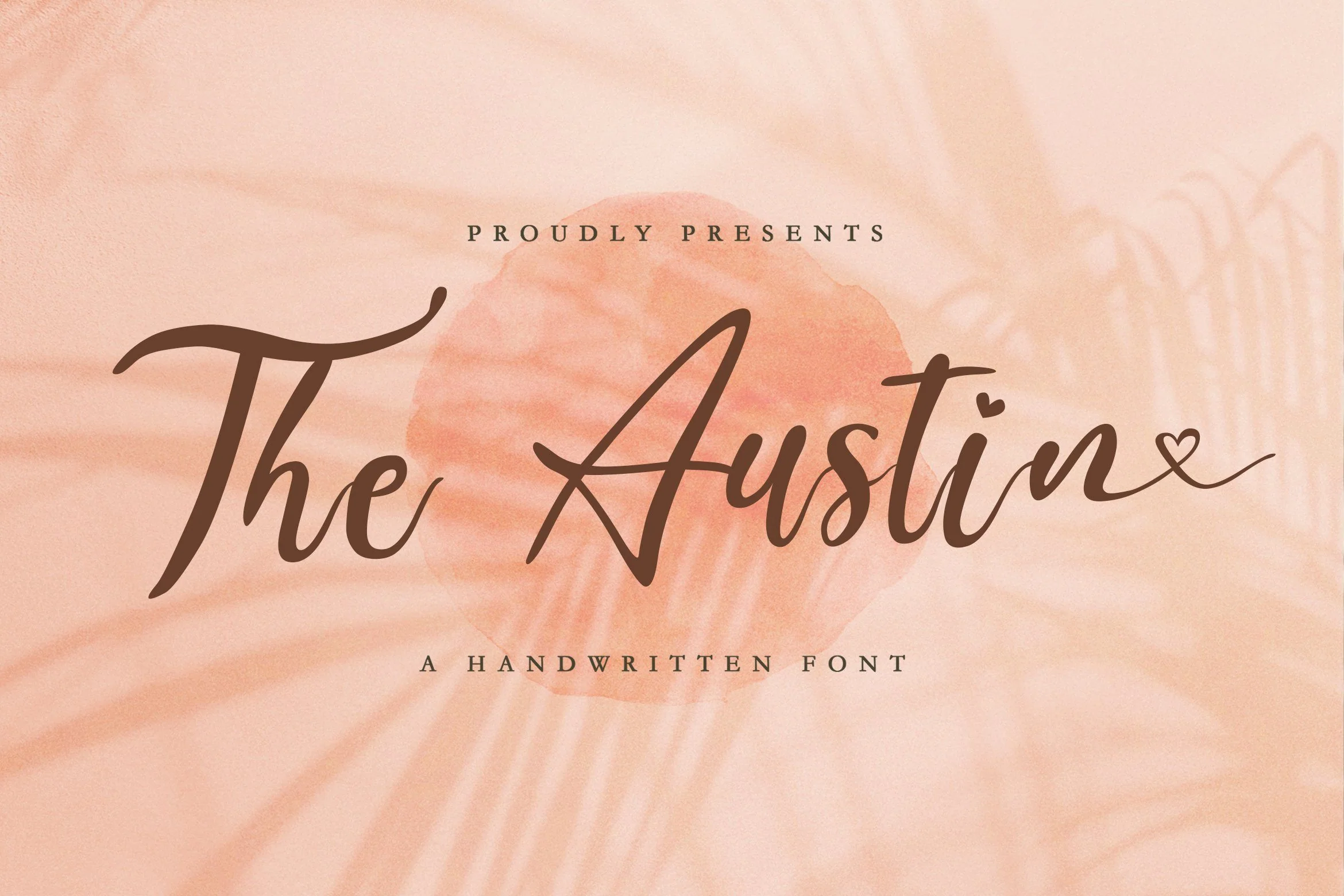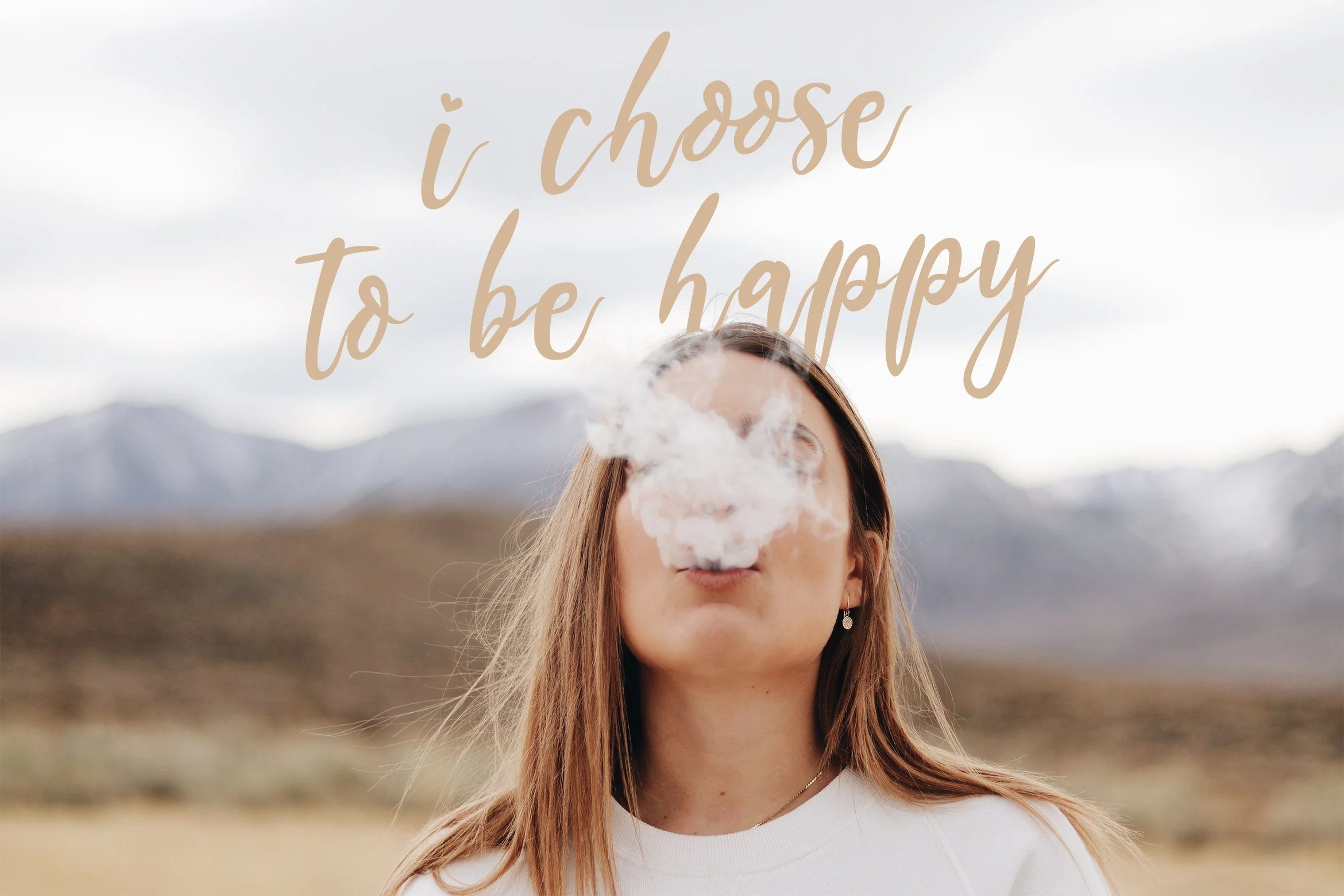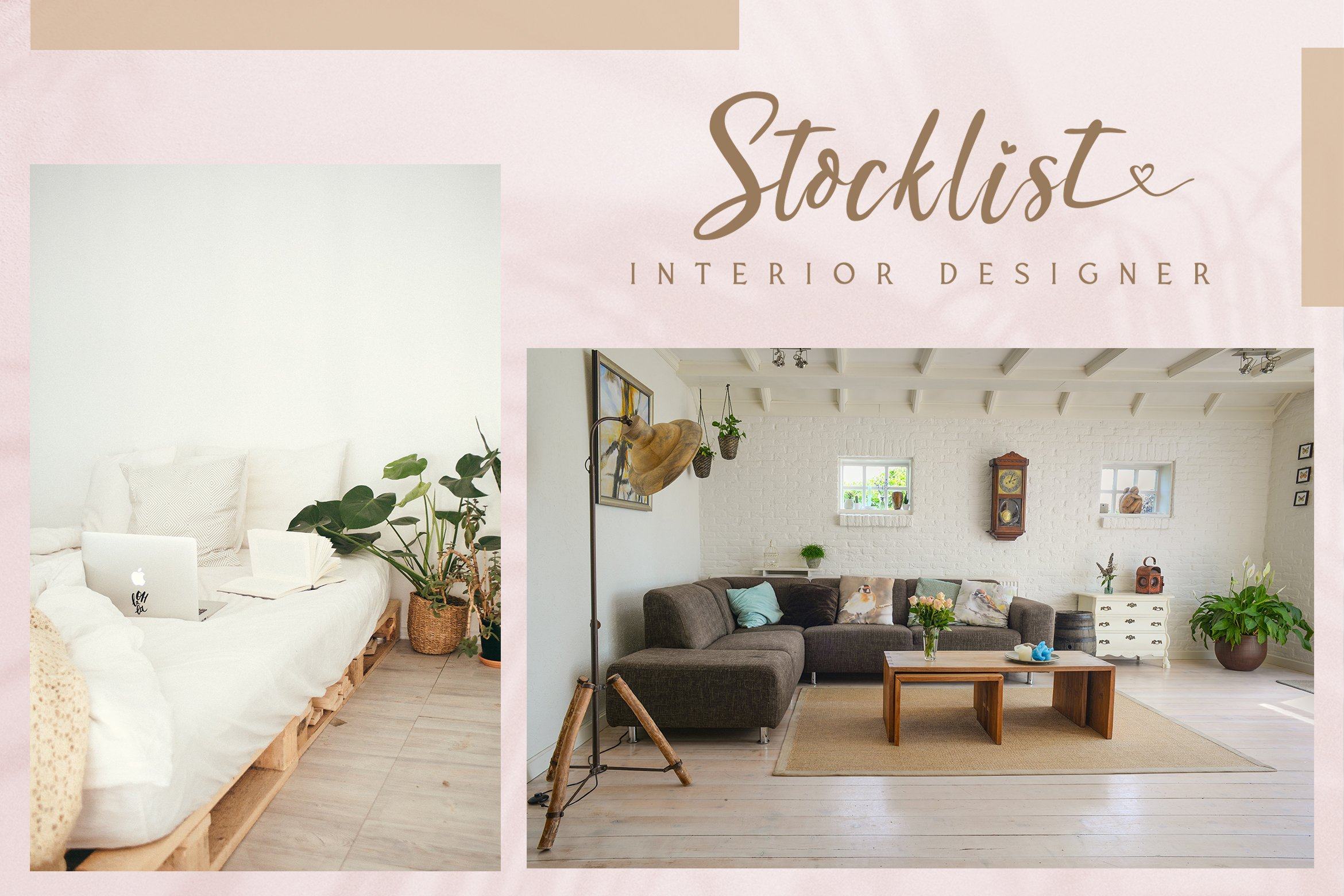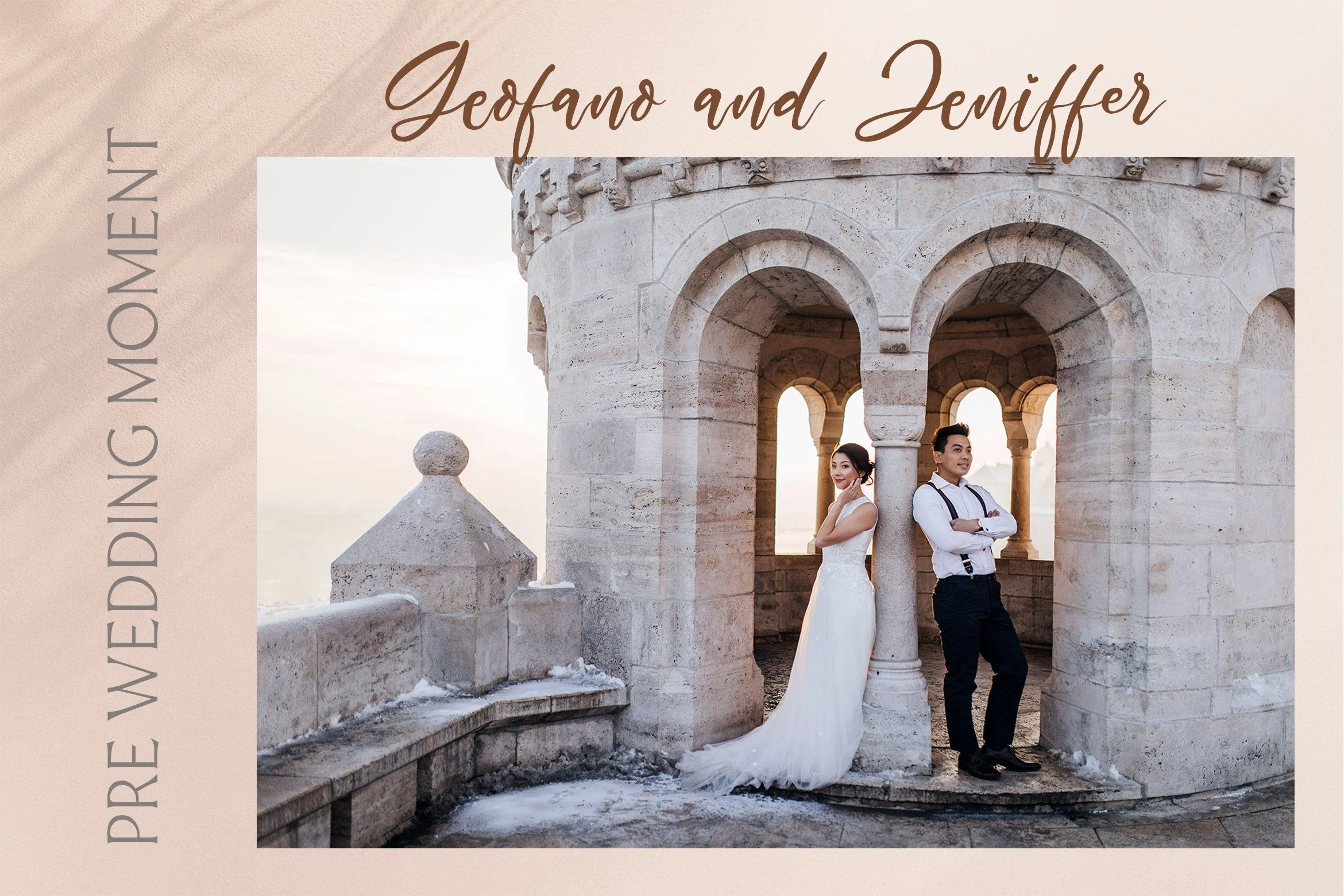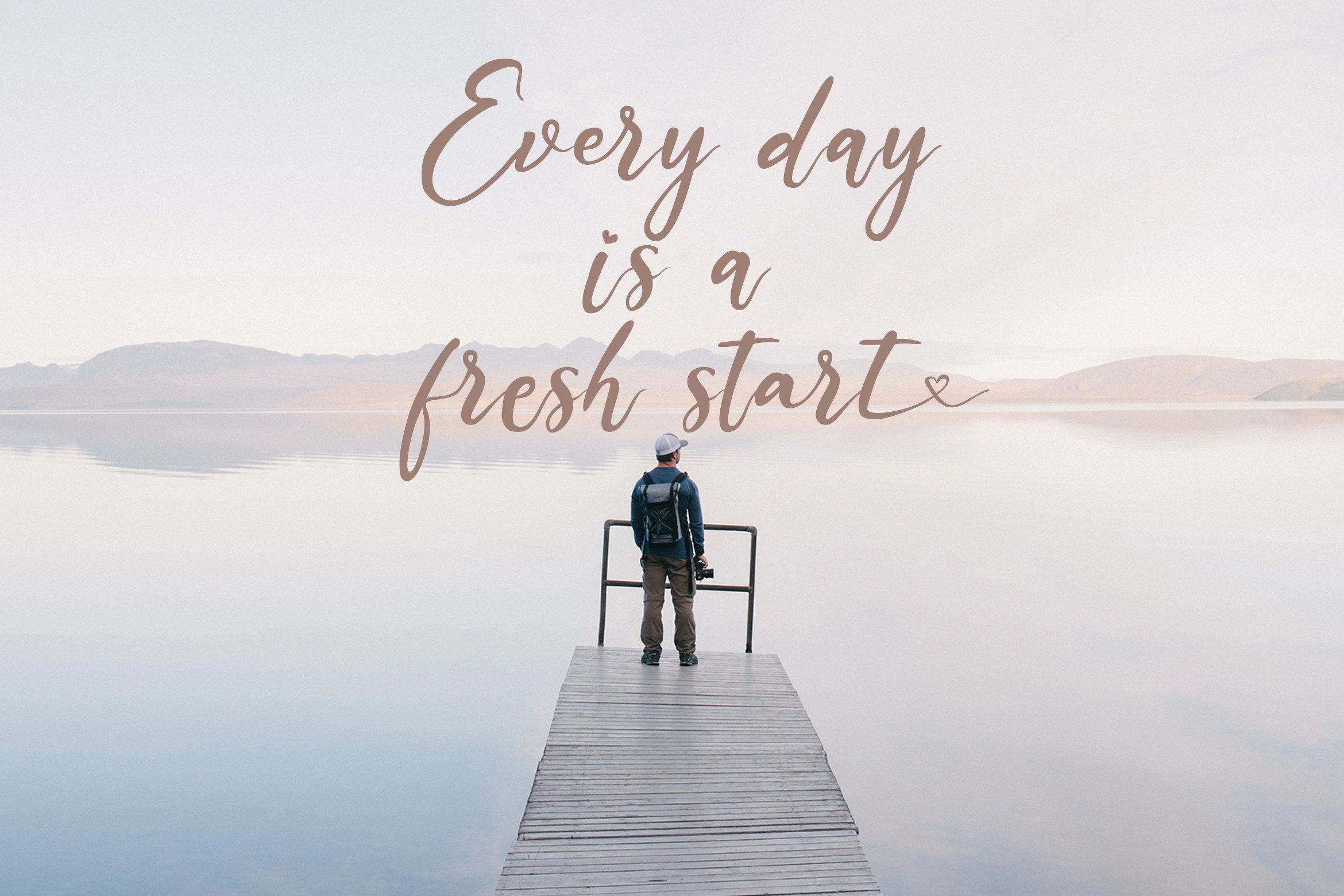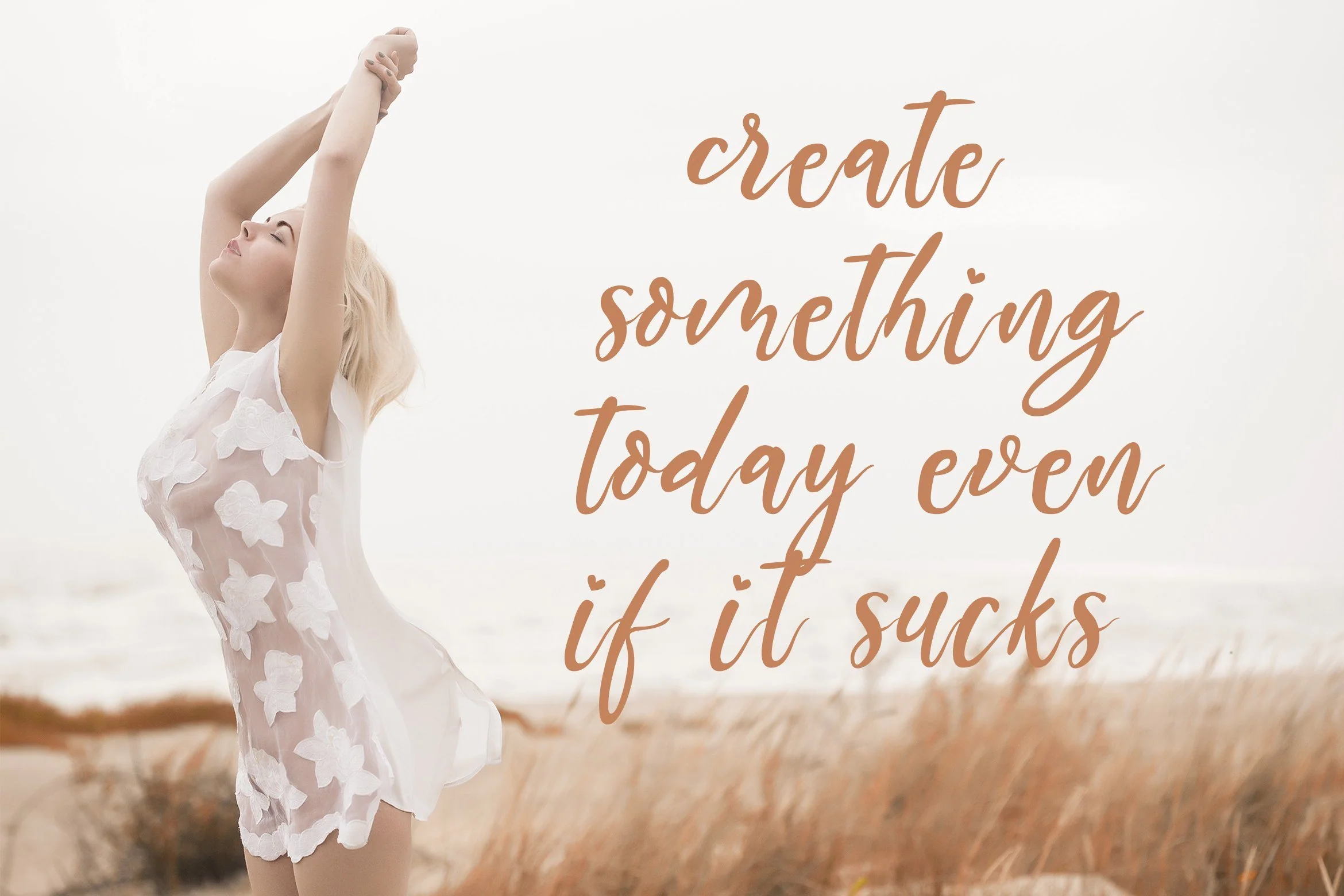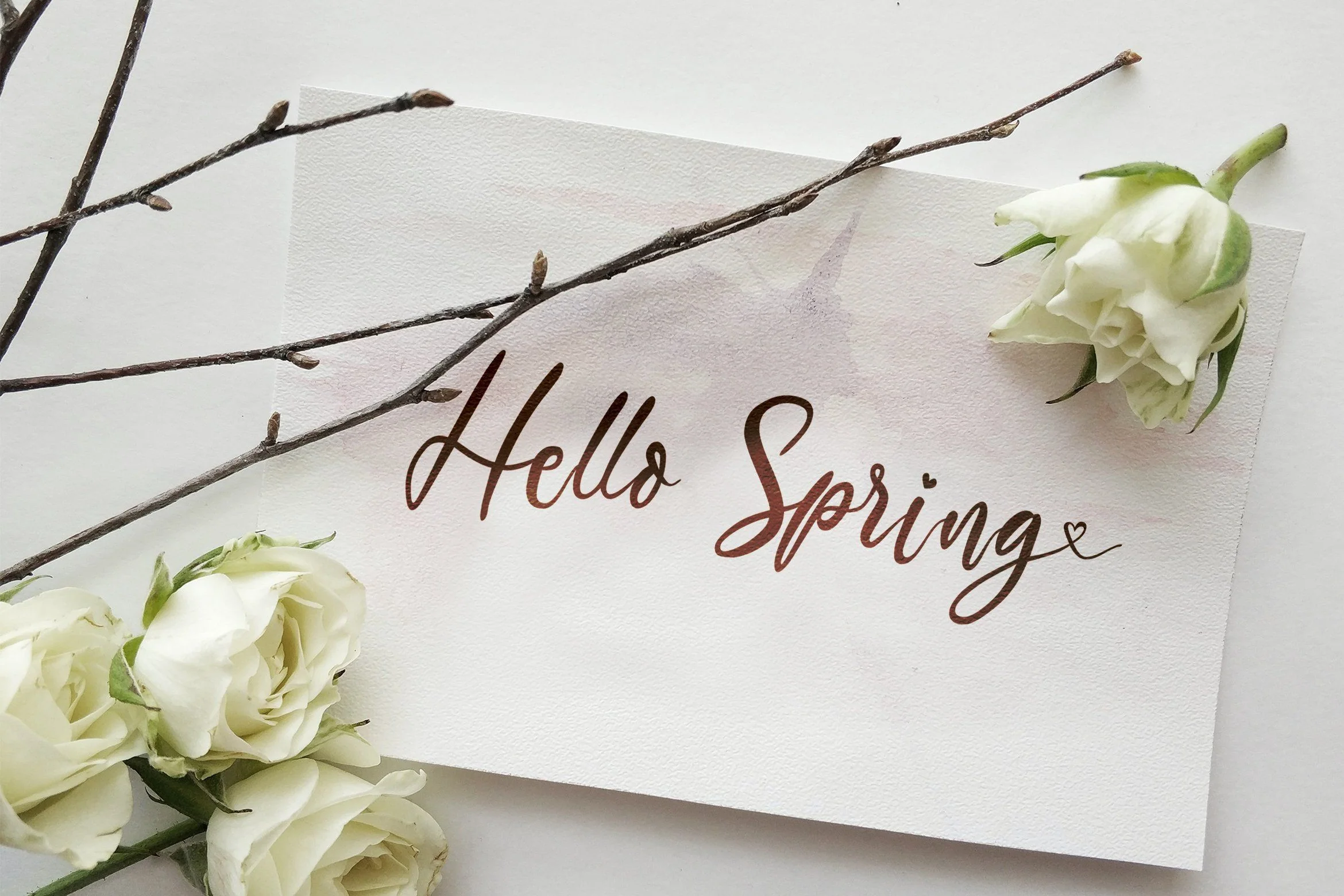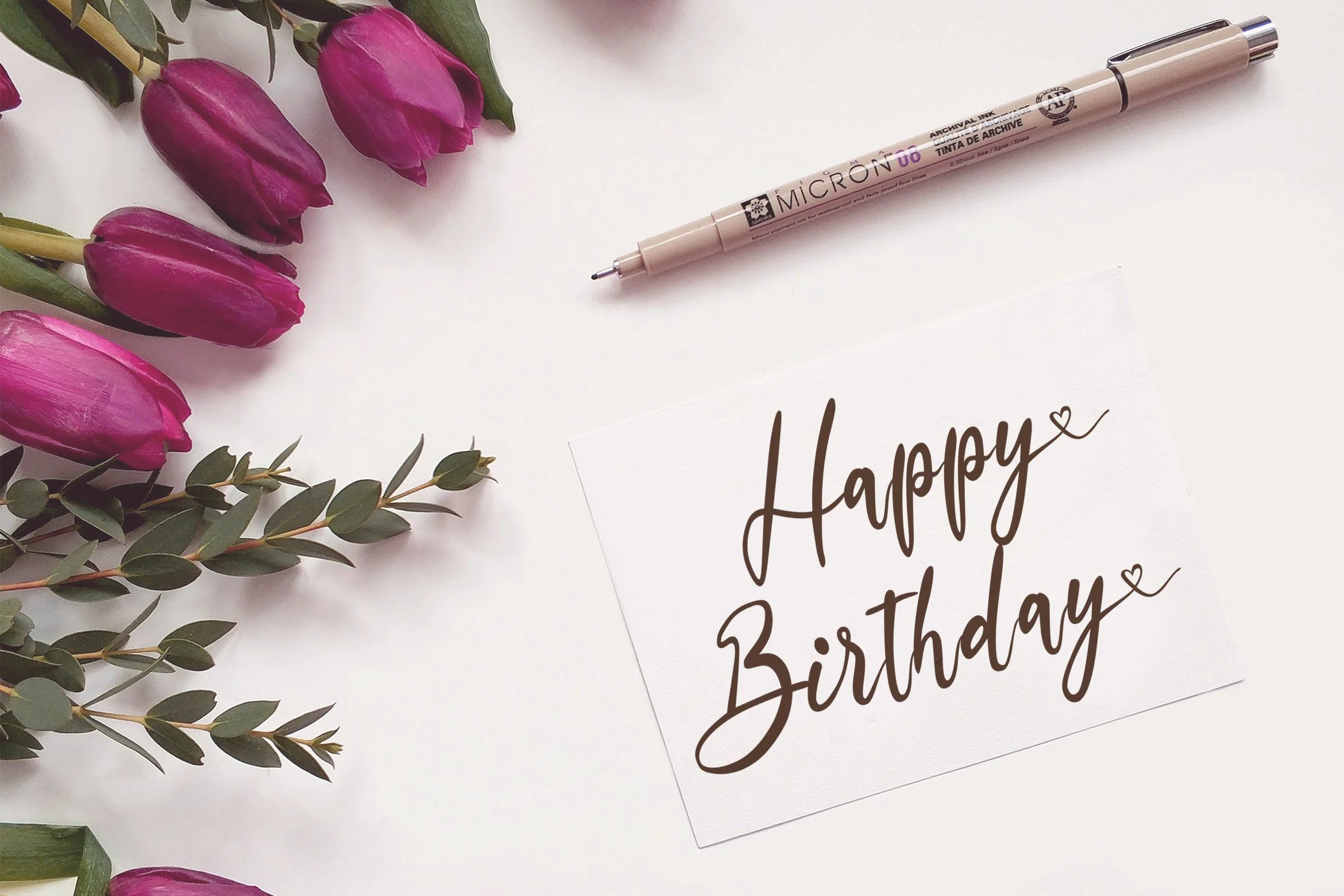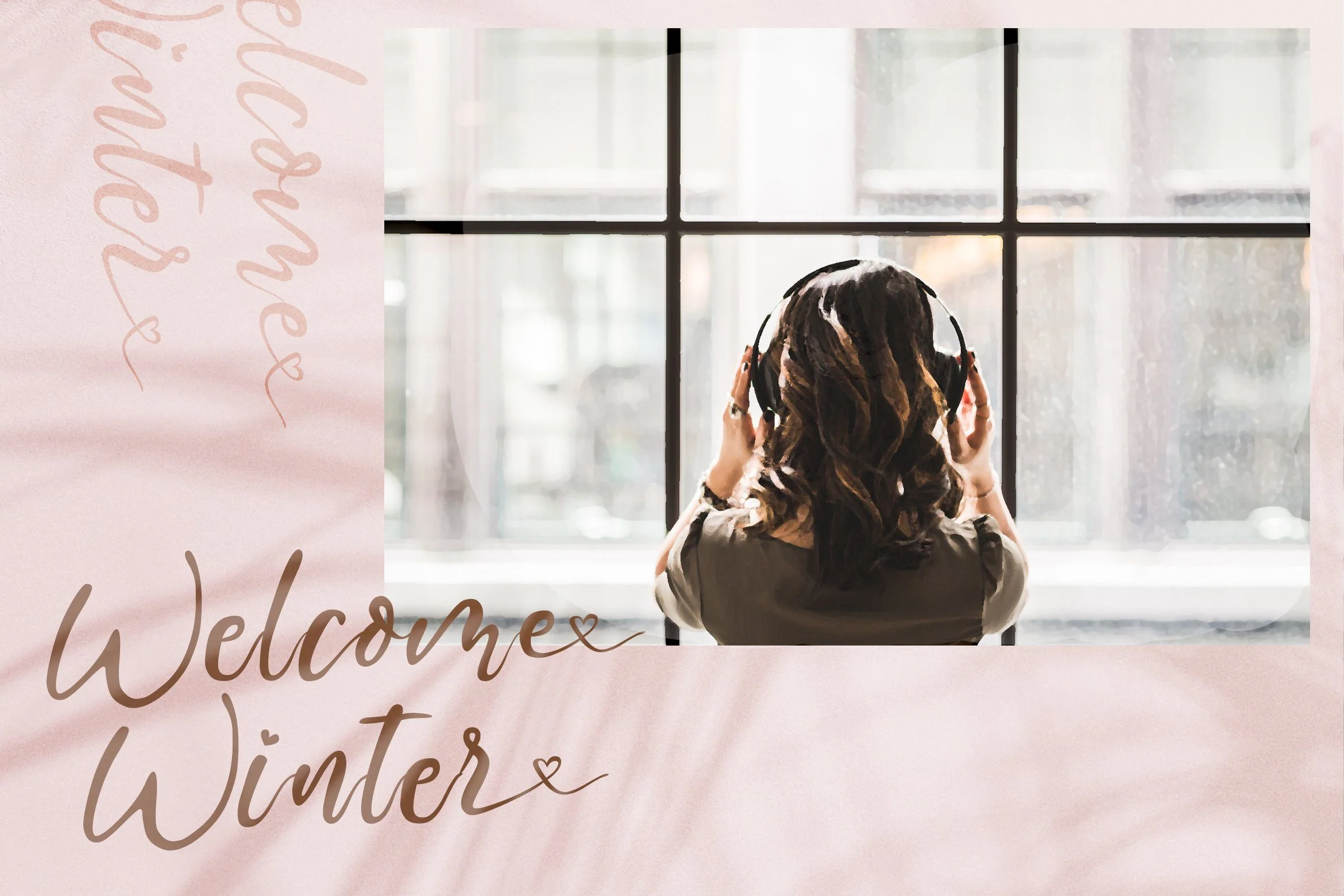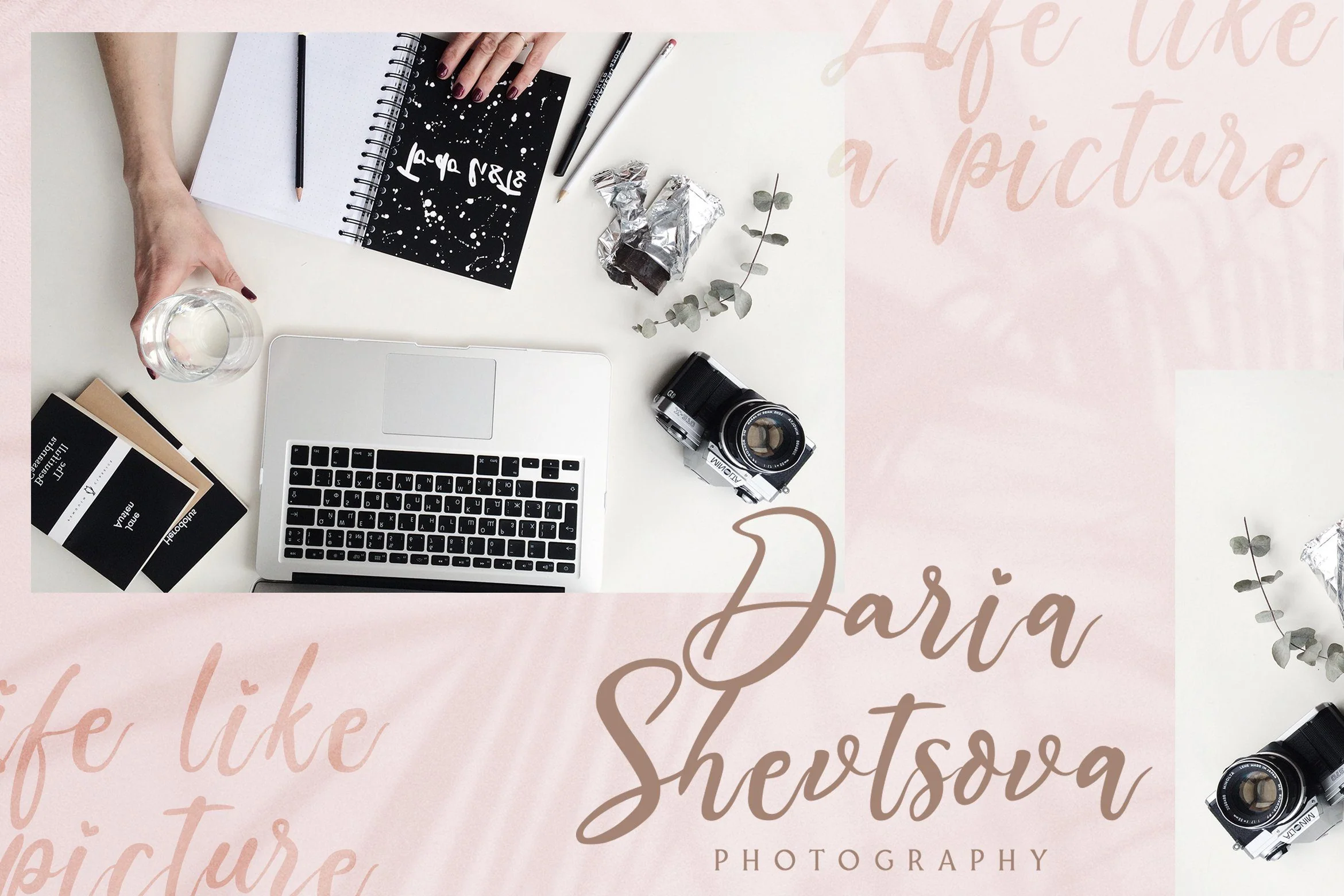
The Austin - Handwritten Script Font
Introducing The Austin - Handwritten Script Font
The Austin is a Modern Script Font with Calligraphy Style. The Austin font was created with authentic handwritting brush pen. This font is perfect for fashion brand, wedding invitation, business card, logo brand, signature, and for your any calligraphy projects.
- Begin Calt
- End Calt